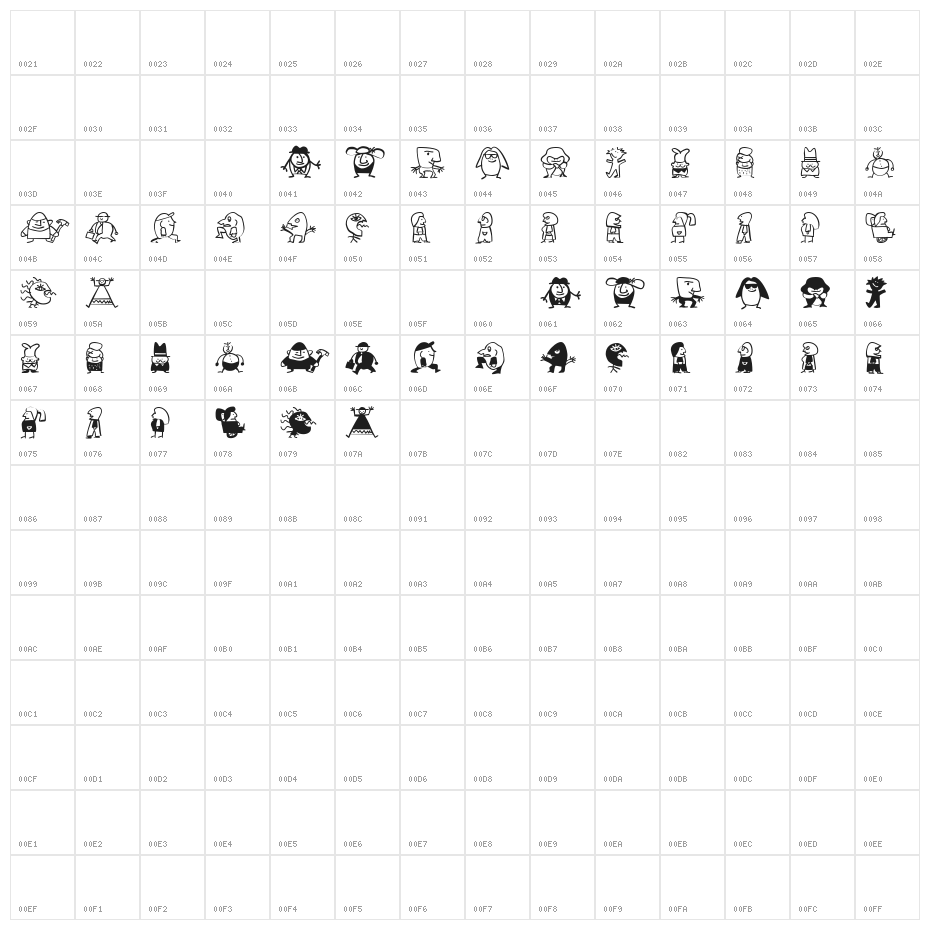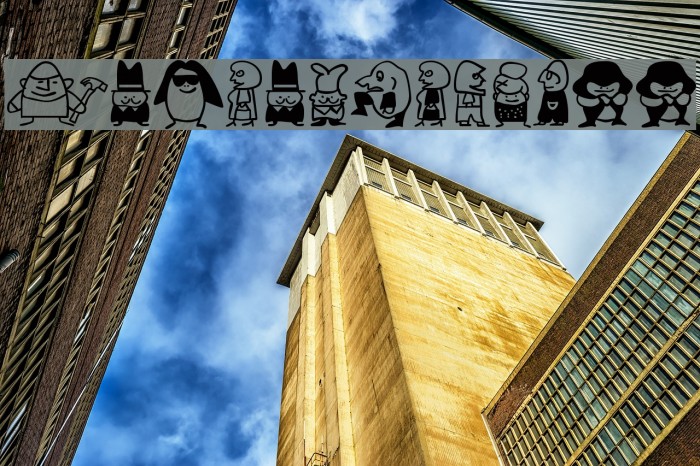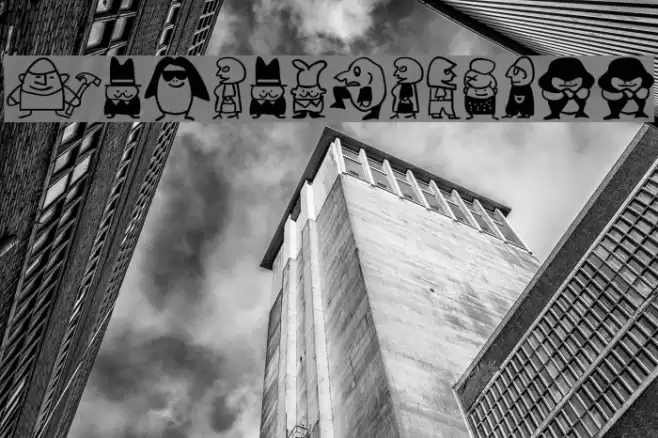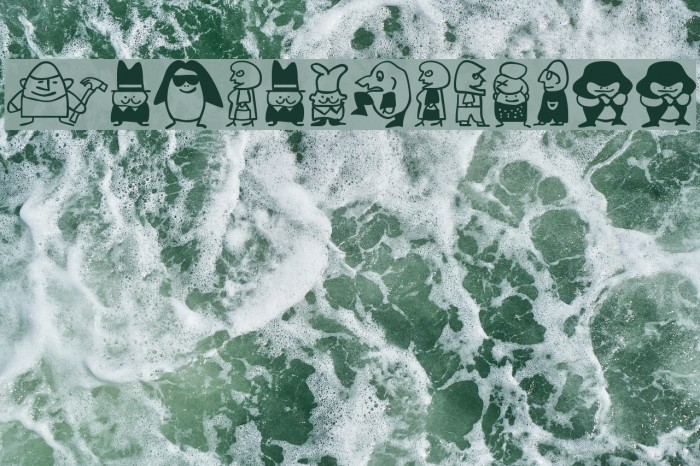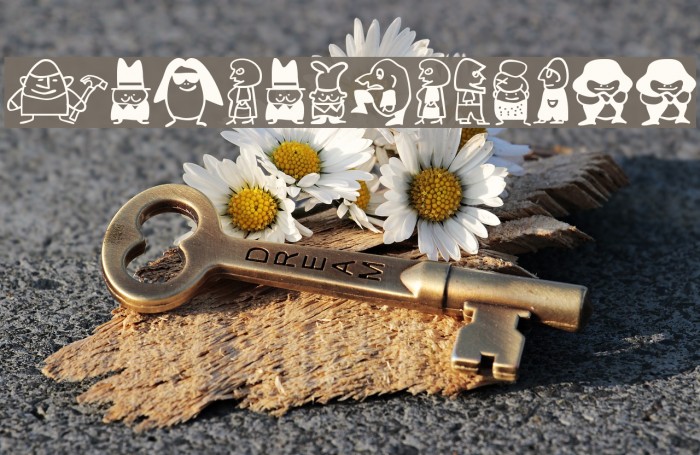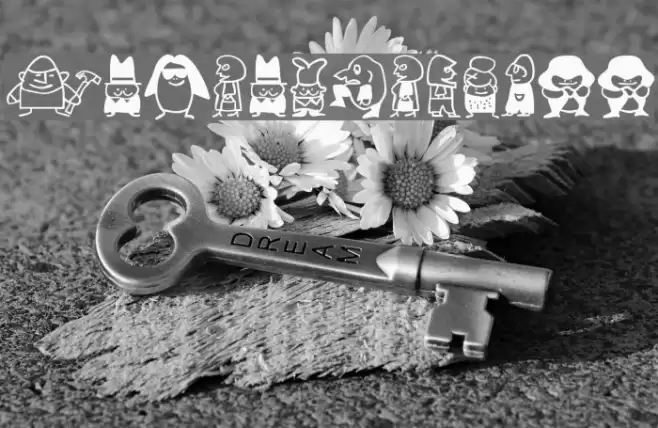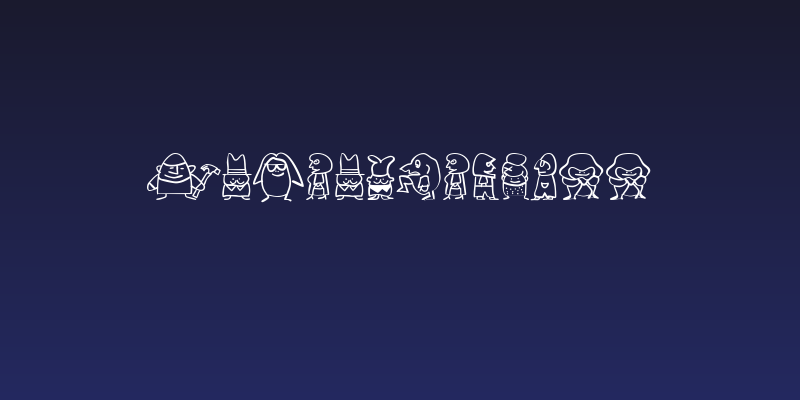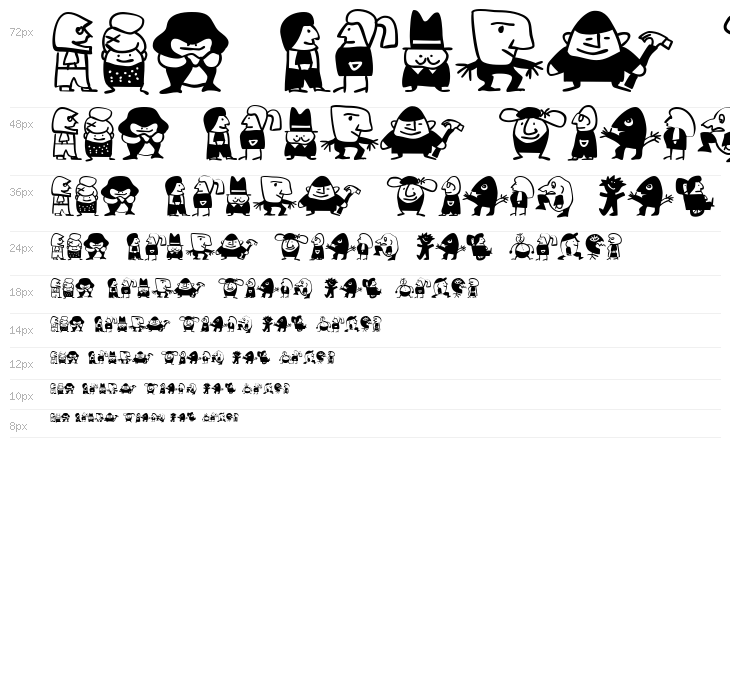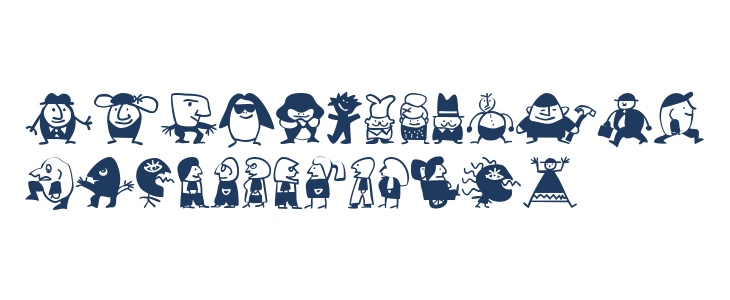
KidSignsThree Font
KidSignsThree Description
This font features a playful and whimsical design, with each character represented by a unique cartoon-like figure. The characters are highly stylized, with exaggerated features and a variety of quirky, imaginative shapes. The overall appearance is reminiscent of children's drawings, with a sense of fun and creativity. The figures are bold and distinct, making them easily recognizable and adding a touch of humor and lightheartedness to any project. This font is perfect for projects that aim to capture a youthful and playful spirit, such as children's books, educational materials, or playful branding. The characters are designed with a consistent line weight, ensuring uniformity across the set, while the individual designs offer a wide range of expressions and postures, enhancing the font's versatility.
Overall StylePlayful, Whimsical
Proposed ProjectsIdeal for children's books, playful branding, educational materials, and creative posters.